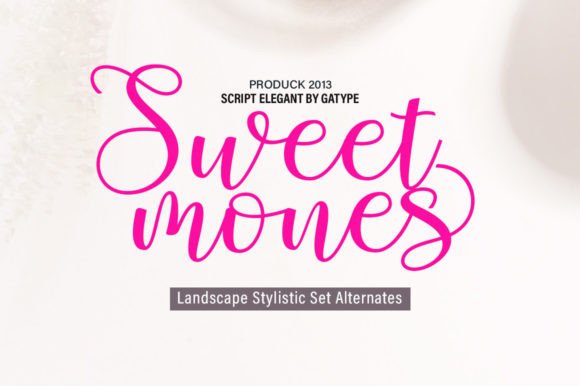
Are you looking for a new way to elevate your designs? Look no further than Sweet Mones Font, the newest addition to our collection. Created by gatype, this script font boasts a natural handwriting style that exudes class and sophistication.
Sweet Mones Font is perfect for a variety of design projects, including posters, banners, logos, book covers, titles, print products, merchandise, and social media. With its chic and stylish typeface, this font is sure to impress your audience and make your work stand out from the rest.
But that's not all - Sweet Mones Font is also PUA encoded, which means you can effortlessly access all glyphs and swashes to further customize your designs.
Don't settle for boring and generic fonts - elevate your work with Sweet Mones Font today. Preview the font to see all the ways you can use it and take the first step towards creating stunning designs that truly capture your audience's attention.